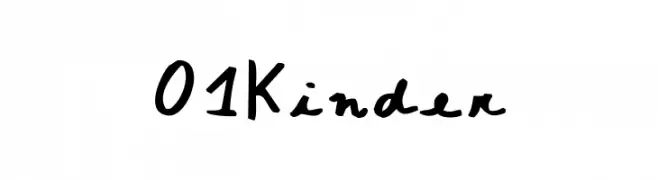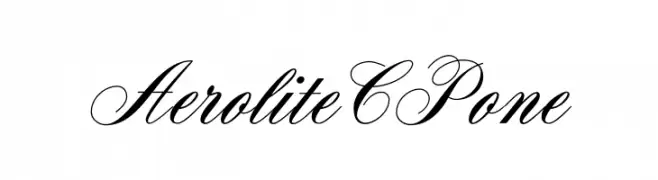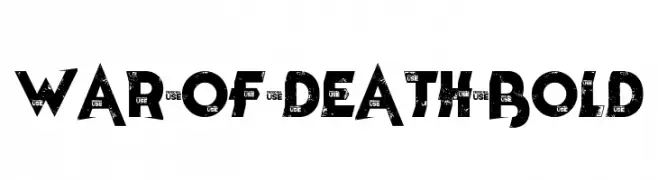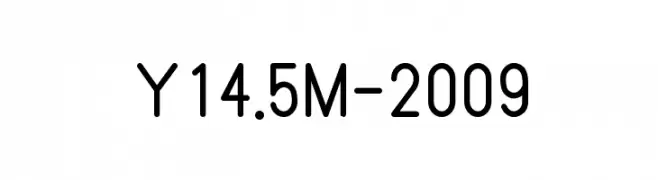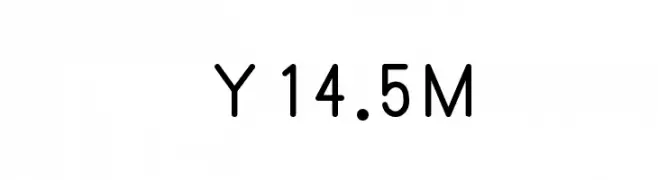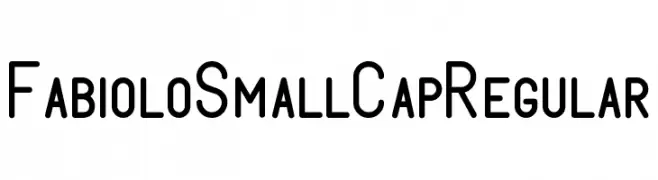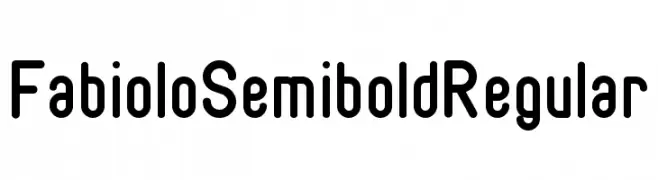
A playful, handwritten font with a casual and energetic style.
An elegant script font with flowing, cursive letterforms and classic calligraphic style.
A bold, distressed font with a gritty, textured appearance.
A modern, rounded sans-serif font with a clean and approachable design.
A modern, geometric sans-serif font with clean lines and uniform stroke widths.
A bold, decorative font with intricate curves and playful serifs.
A modern, rounded sans-serif font with a clean and approachable design.
A modern, rounded sans-serif font with a friendly and approachable style.